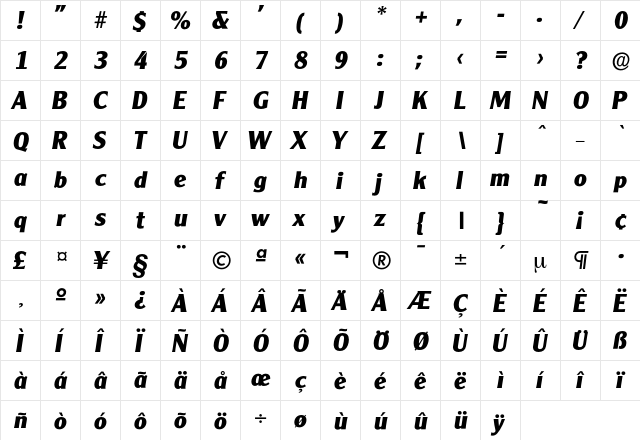
Cleargothic-BoldIta Regular
Design Context for Cleargothic-BoldIta Typeface
Cleargothic-BoldIta has the quiet confidence of well-executed sans-serif typography: versatile, unobtrusive, and dependable at any size. The heavy weight commands attention and anchors typographic hierarchies.
A strong choice for UI design, app interfaces, bold signage, and corporate brand systems.
Font Pairing: Use Cleargothic-BoldIta for headlines alongside a lighter-weight sans or serif for body copy to establish clear visual hierarchy.
Pro Tip: Pair Cleargothic-BoldIta with a display or serif font for headlines — its neutral character makes it an excellent supporting player in complex typographic systems.